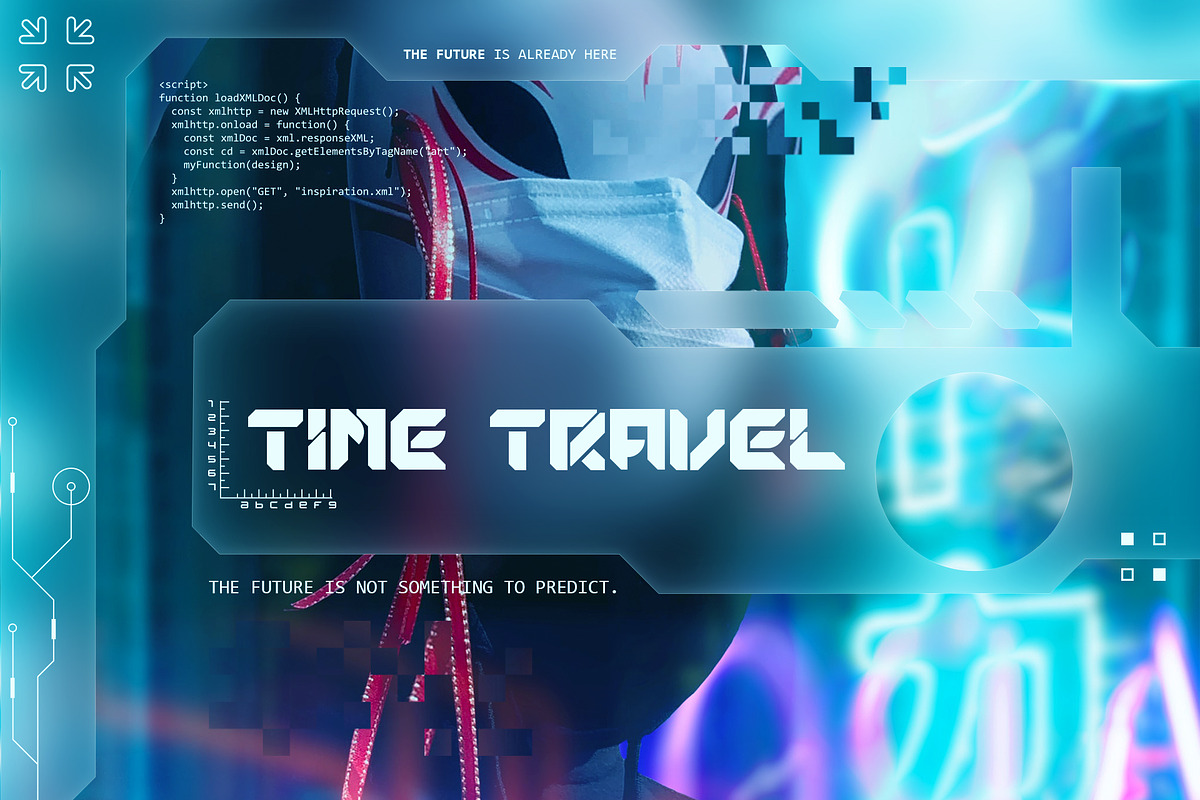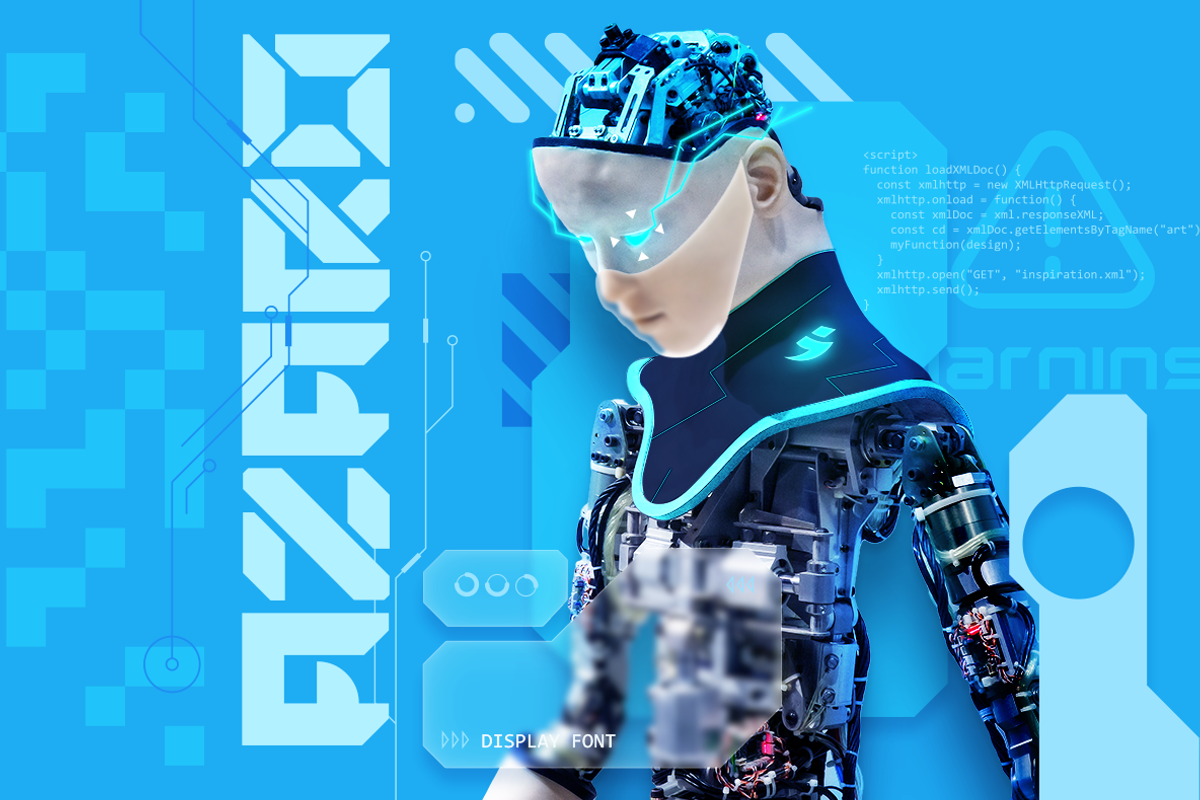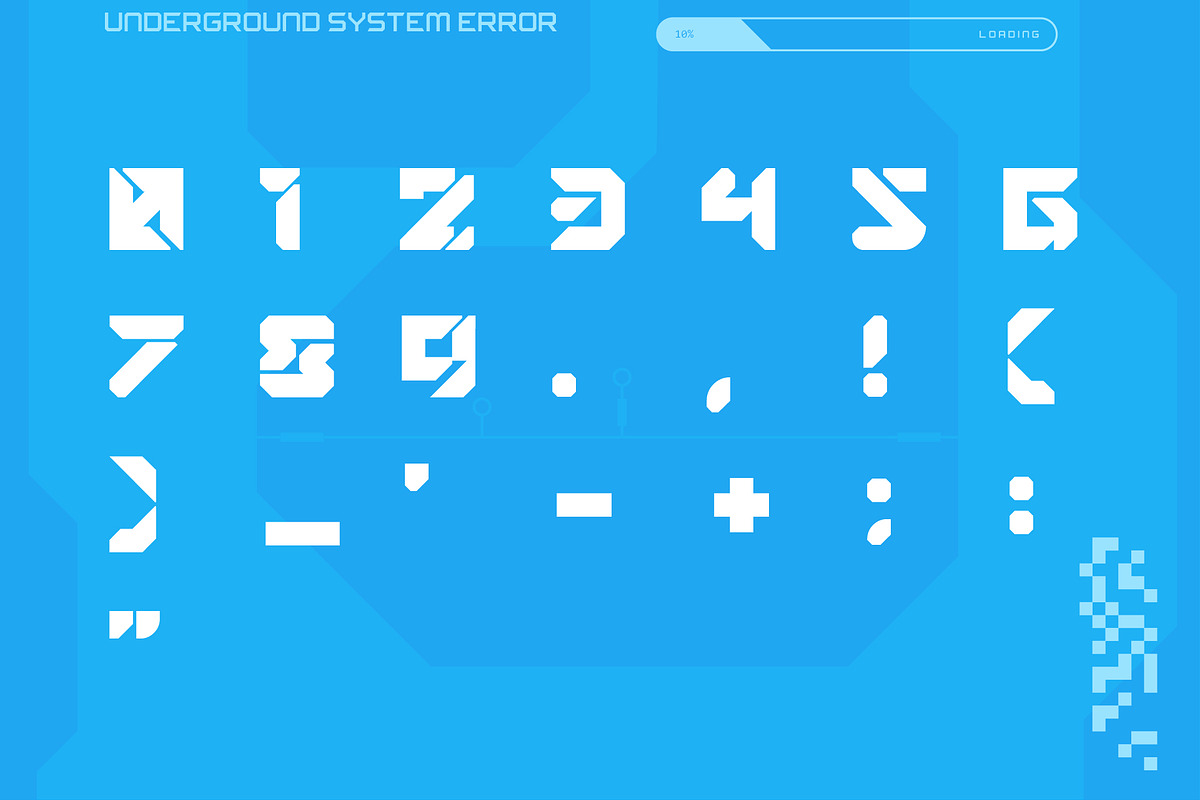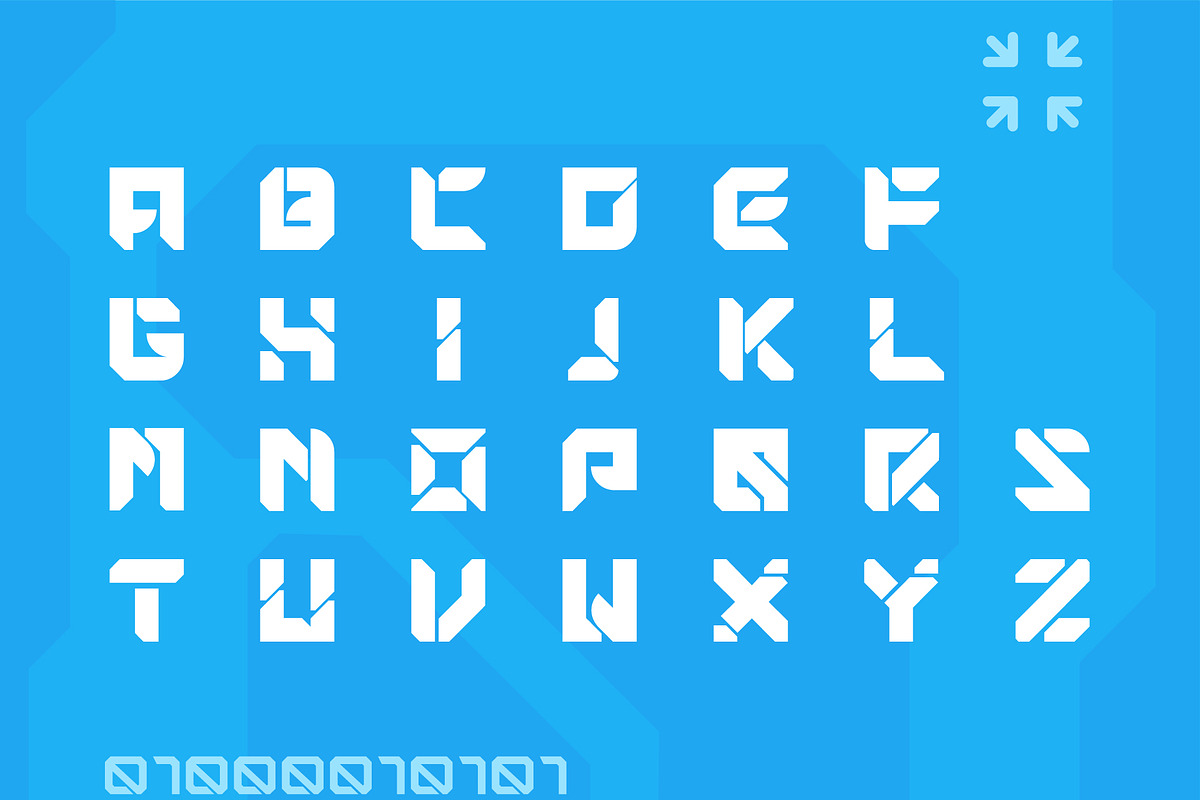
Azaro - Futuristic Sci-fi Font
INTRODUCING Azaro is a futuristic design and space display font. This typeface is clean, modern, versatile, and it will give the best results for displays, branding, or headlines. This future-inspired font will feel timeless with a sci-fi, cyberpunk, or robotic theme. Grab it right away and use it on various creations.